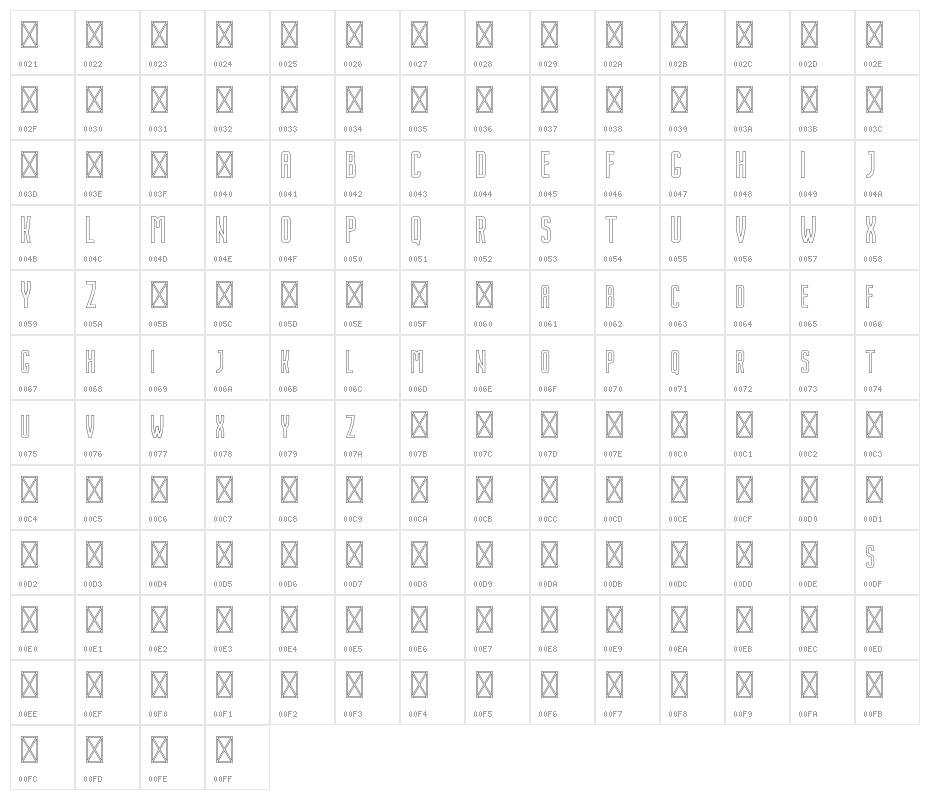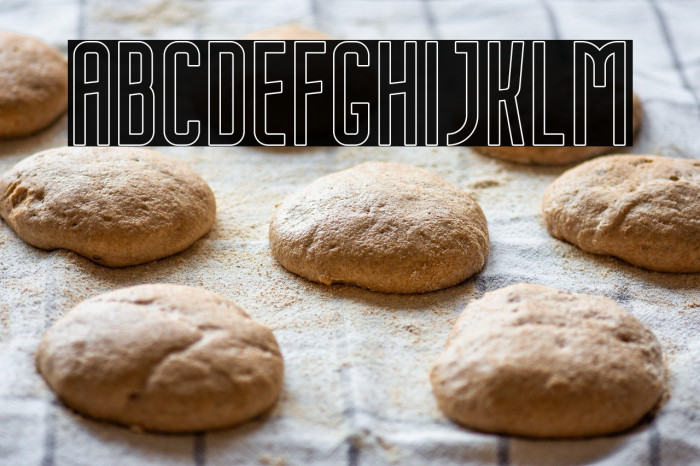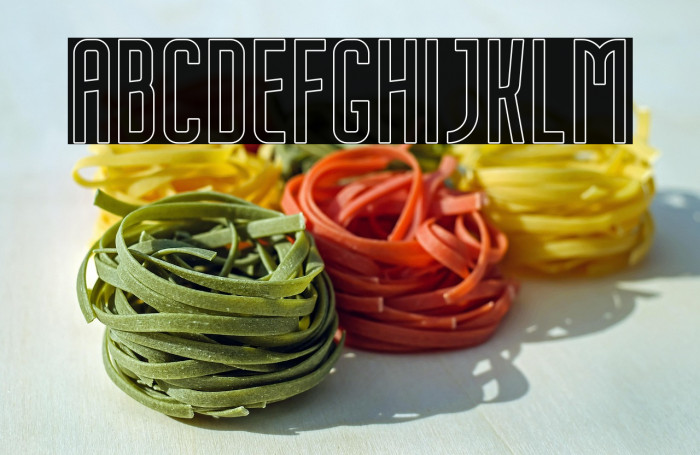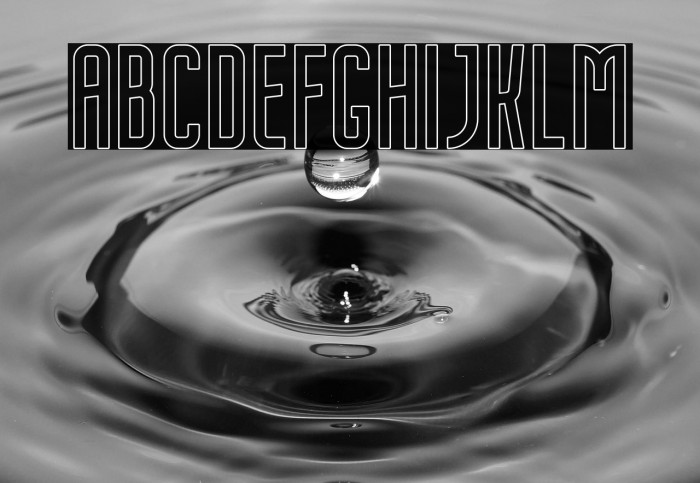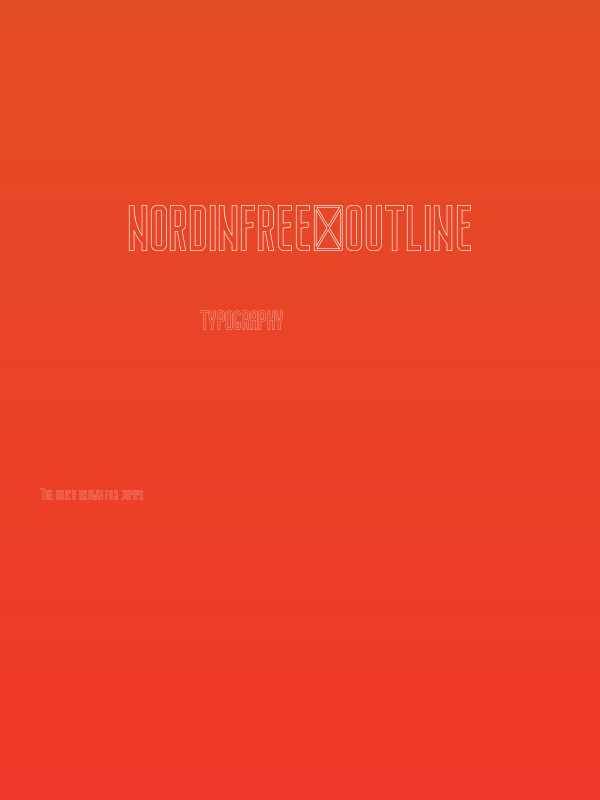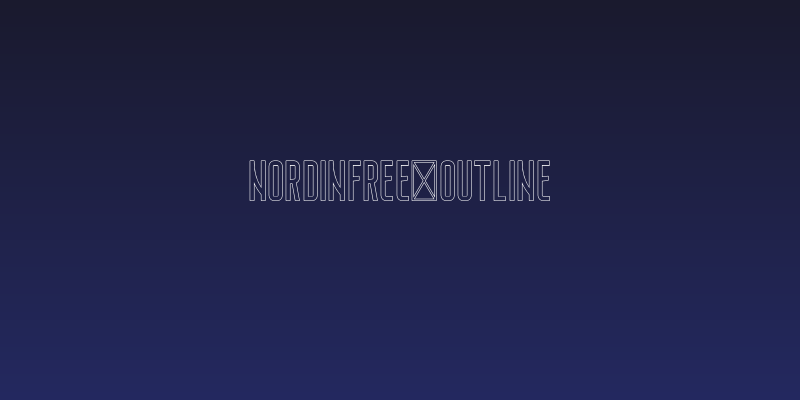
NordinFree-Outline Font
NordinFree-Outline Description
This font features a distinct outline style with uppercase letters only. The characters are tall and narrow, giving them a modern and sleek appearance. The lines are uniform in thickness, creating a clean and structured look. The geometric shapes of the letters are emphasized by the outline design, making it suitable for display purposes where a bold statement is needed. The absence of lowercase letters and numerals suggests a focus on impactful, large-scale text applications.